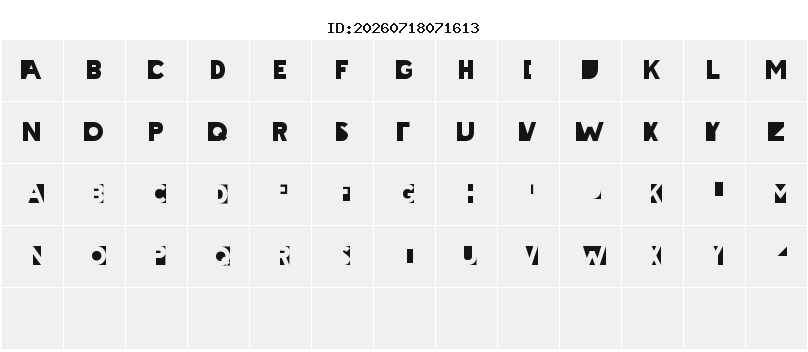
Cheatin Preview
• Font Name: Cheatin
• Full Font Name: Cheatin Regular
About Cheatin.ttf
Cheatin.ttf is a modern, elegant sans-serif font designed for ultimate readability and visual harmony. Perfect for branding, headlines, web design, and print materials.